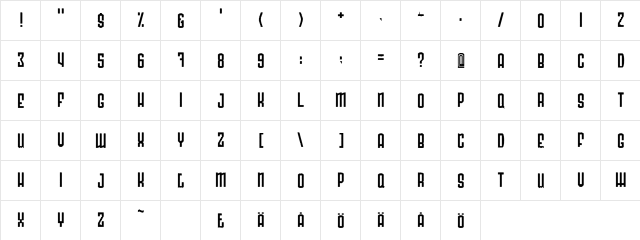
Radonator Cactus Normal
Design Context for Radonator Cactus Typeface
Radonator Cactus offers clean, dependable letterforms without strong stylistic allegiance, making it a practical choice for designers who need flexibility.